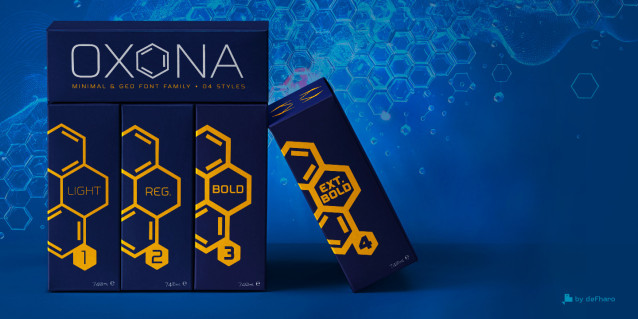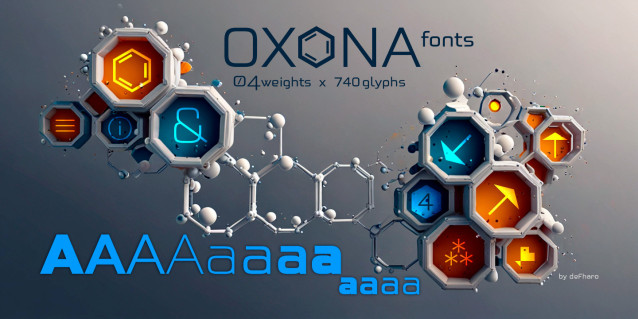
Oxona Sans Roman Font
Oxona is a futuristic sans serif with 4 weights, meticulously calculated square proportions that aims to redefine readability and visual impact. Every stroke, every curve and every angle has been polished to achieve a perfect balance between absolute clarity and aesthetic boldness due to its cleanliness, modernity and functionality, the geometric structure and its subtle optical adjustments that generate great harmony and make it a unique typeface, as rational as it is expressive.
Oxona is available in four weights:
Light – Delicate and sophisticated, for texts that exude elegance
Regular – The balanced one, perfect for impeccable text bodies.
Bold – Forceful and expressive, for titles that demand attention.
Extra Bold – The most daring, created to shout ideas with force.